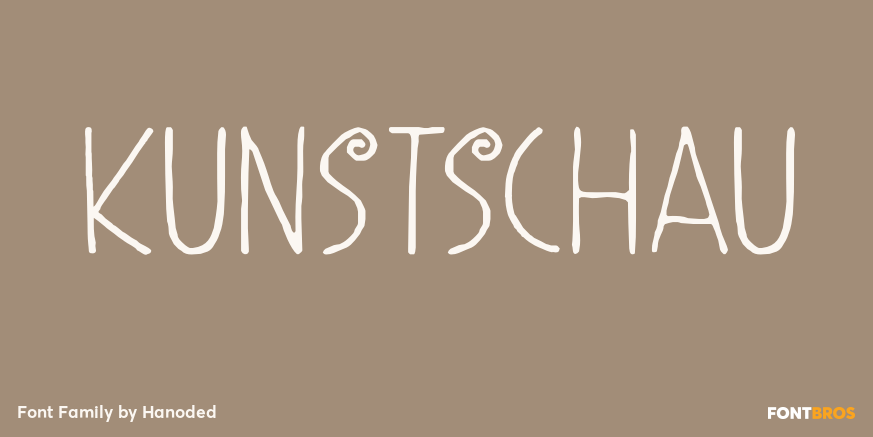
Kunstschau
About Kunstschau
The 1908 art exhibition in Vienna (Kunstschau 1908) featured works by Josef Hoffmann, Cark Otto Czeschka and Gustav Klimt, who showcased his famous painting ?The Kiss?. Kunstschau font was modeled on a stamp, designed by Austrian artist Bertold L